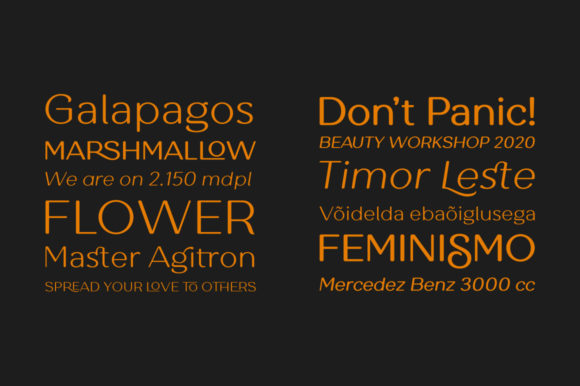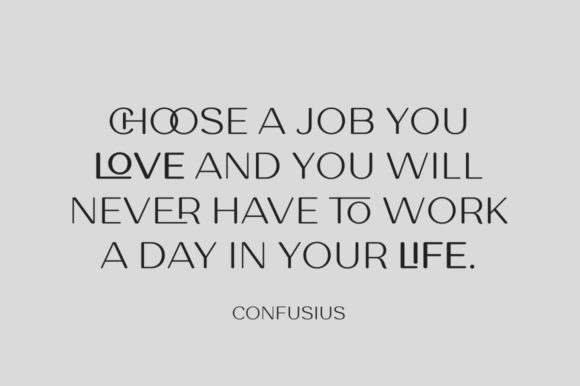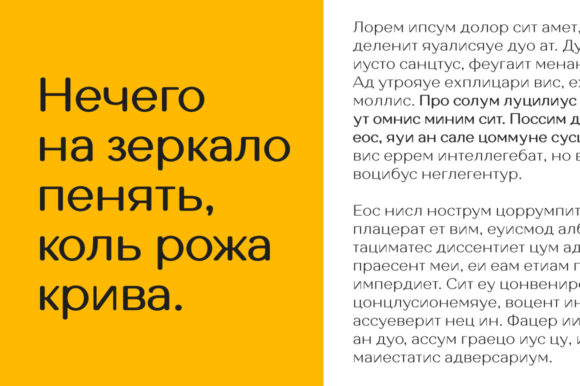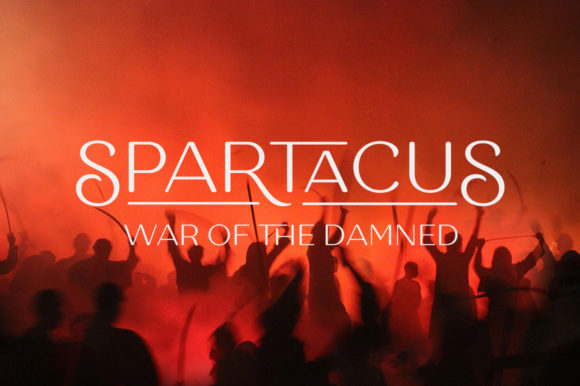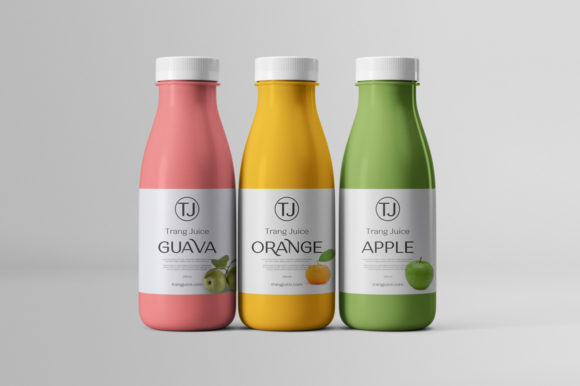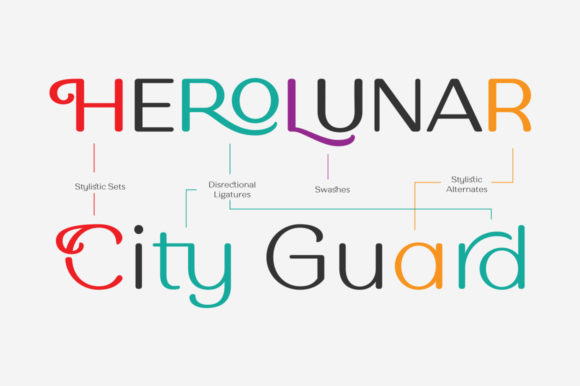
Introducing Antario Font: The Ultimate Sans Serif for Modern Designs
In the world of typography, a font can make or break a design. For designers and crafters, finding the perfect font that is both versatile and visually appealing can be a daunting task. However, look no further than Antario Font, a clean and adaptable sans serif font that is suitable for a wide range of branding projects. From logos to t-shirt printing, sport designs, and more, Antario Font is the perfect choice for any creative endeavor.
What Makes Antario Font Stand Out?
Antario Font is a modern sans serif font that boasts a clean and minimalist aesthetic. Its sleek lines and simple shapes make it an excellent choice for designers who want to create a professional and sophisticated look. The font’s adaptability is one of its standout features, allowing it to seamlessly integrate into various design contexts. Whether you’re working on a logo, a brochure, or a website, Antario Font will look outstanding and effortlessly complement your design.
Key Features of Antario Font
- Clean and Minimalist Design: Antario Font features a clean and minimalist design that makes it perfect for modern brands and designs.
- Adaptable and Versatile: The font’s adaptability makes it suitable for a wide range of design projects, from logos to t-shirt printing and sport designs.
- Sans Serif Aesthetic: The sans serif aesthetic of Antario Font gives it a professional and sophisticated look that is perfect for businesses and brands.
- Easily Readable: The font’s clear and concise design makes it easily readable, even at small font sizes.
Use Cases for Antario Font
Antario Font is an incredibly versatile font that can be used in a variety of design projects. Here are some use cases where Antario Font excels:
- Logo Design: Antario Font is perfect for creating modern and professional logos that make a lasting impression.
- T-Shirt Printing: The font’s bold and clear design makes it ideal for t-shirt printing, ensuring that your message or logo stands out.
- Sport Designs: Antario Font’s sleek and modern aesthetic makes it a great choice for sport designs, such as jerseys, team logos, and more.
- Branding and Advertising: The font’s professional and sophisticated look makes it perfect for branding and advertising projects, such as brochures, flyers, and billboards.
Why Choose Antario Font?
With so many fonts available, why choose Antario Font? Here are a few reasons why Antario Font stands out from the rest:
- Unique and Modern Design: Antario Font features a unique and modern design that will set your brand apart from the competition.
- Highly Legible: The font’s clear and concise design makes it highly legible, ensuring that your message is communicated effectively.
- Flexible and Adaptable: Antario Font’s adaptability makes it suitable for a wide range of design projects, saving you time and effort.
In conclusion, Antario Font is an exceptional sans serif font that is perfect for designers and crafters looking for a clean, adaptable, and versatile font. Its modern aesthetic, high legibility, and flexibility make it an excellent choice for a wide range of design projects. Whether you’re working on a logo, t-shirt printing, sport designs, or more, Antario Font is sure to deliver outstanding results. So why wait? Try Antario Font today and take your designs to the next level!